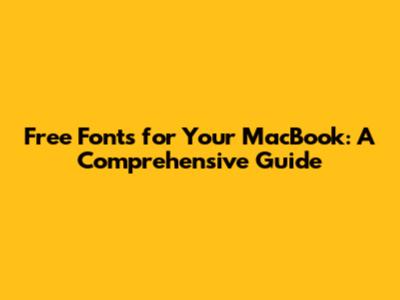
Google Fonts: This is a goldmine! Google Fonts offers a vast library of open-source fonts that are free for personal and commercial use. The best part? They're super easy to browse and download. Plus, they're web-optimized, so you can use them on your website too.
Font Squirrel: Font Squirrel is another fantastic resource. They hand-select fonts and ensure they are high-quality and legally free for commercial use. They also have a handy "Font Identifier" tool that helps you identify fonts from images.
DaFont: DaFont is a classic choice. It has a massive collection of fonts, but be aware that many of them are free for personal use only. Always double-check the license before using a font for commercial projects. The site is well-organized, making it easy to search for different styles and themes. DaFont's extensive library includes everything from basic serif and sans-serif fonts to more decorative and specialized options, ensuring there's something for every project. Regular updates keep the selection fresh, while user reviews provide additional insights into font quality and usability.
Creative Market (Free Goods Section): Creative Market offers premium design assets, but they also have a section with free goods that often includes fonts. Keep an eye on this section, as the offerings change regularly.
MyFonts: While MyFonts is primarily a marketplace for premium fonts, they occasionally offer free fonts as part of promotions. It's worth checking their site periodically to see if you can snag a great deal or a freebie. The site also provides detailed information on font licensing, ensuring you're compliant with usage terms. MyFonts' user-friendly interface and extensive search filters make it easy to find the perfect font for any project.
Adobe Fonts (If you have an Adobe Subscription): If you're an Adobe Creative Cloud subscriber, you have access to Adobe Fonts. These fonts are high-quality and fully licensed for commercial use. They're also seamlessly integrated into Adobe applications.
Use Font Book's Organization Features: Font Book allows you to create collections (folders) to group fonts by project, style, or any other criteria you find useful. This makes it much easier to find the right font when you need it. To create a collection, click the "+" button at the bottom of the Font Book window and give your collection a name. Then, drag and drop fonts into the collection.
Disable Fonts You Don't Use: If you have fonts that you rarely use, consider disabling them. Disabled fonts are still installed on your system, but they won't appear in application font menus, reducing clutter. To disable a font, select it in Font Book, right-click, and choose "Disable." You can re-enable it later if you need it.
Remove Fonts You No Longer Need: If you're sure you'll never use a font again, you can remove it from your system. Be careful when removing fonts, as some system fonts are required for macOS to function properly. Only remove fonts that you've added yourself. To remove a font, select it in Font Book, right-click, and choose "Remove."
Use a Font Management Tool: For more advanced font management, consider using a dedicated font management tool. These tools offer features like font previews, conflict detection, and temporary font activation. Some popular font management tools for macOS include FontExplorer X Pro and RightFont. These tools provide greater control and flexibility over your font library, making it easier to manage large collections.
Regularly Audit Your Font Library: Take some time every few months to review your font library. Remove any fonts you no longer need, organize your collections, and ensure that all your fonts are properly licensed. This will help keep your font library clean and efficient.
Consider the Project: The type of project you're working on should influence your font choice. For example, a formal document might require a classic serif font like Times New Roman or Garamond, while a website might benefit from a clean sans-serif font like Arial or Helvetica.